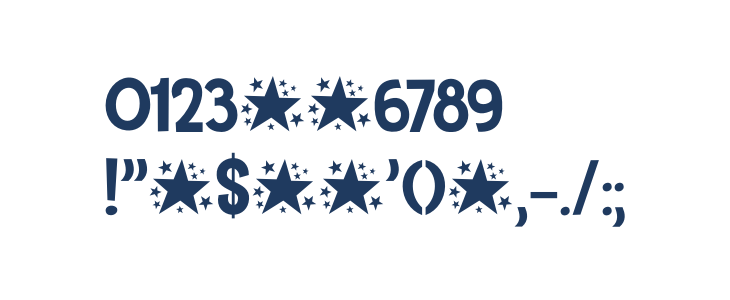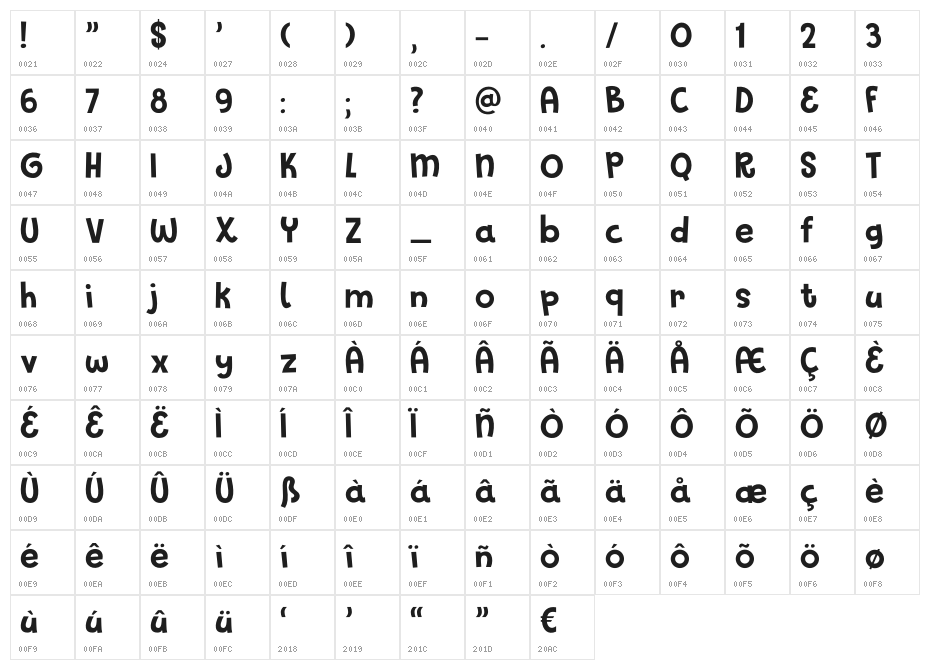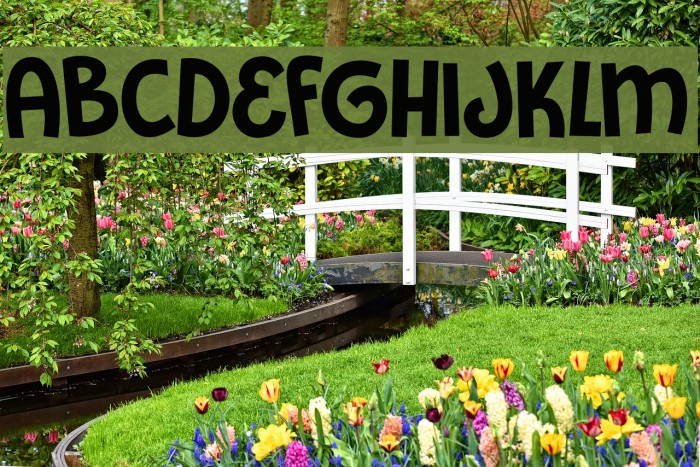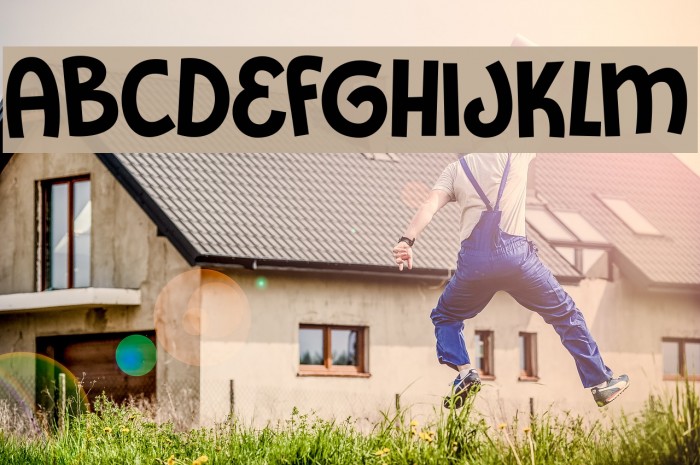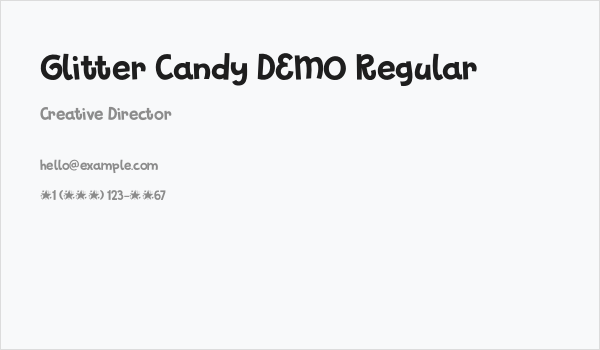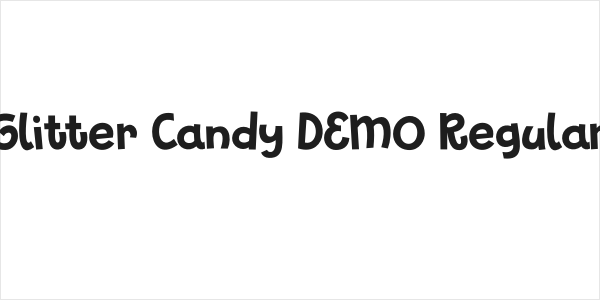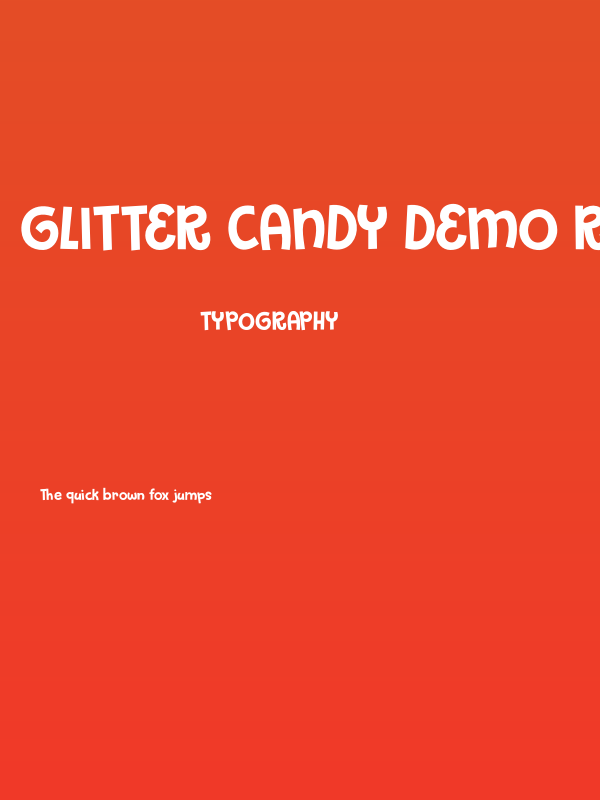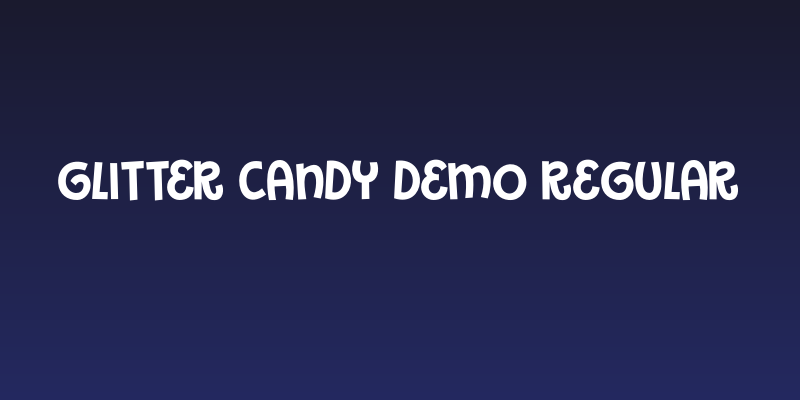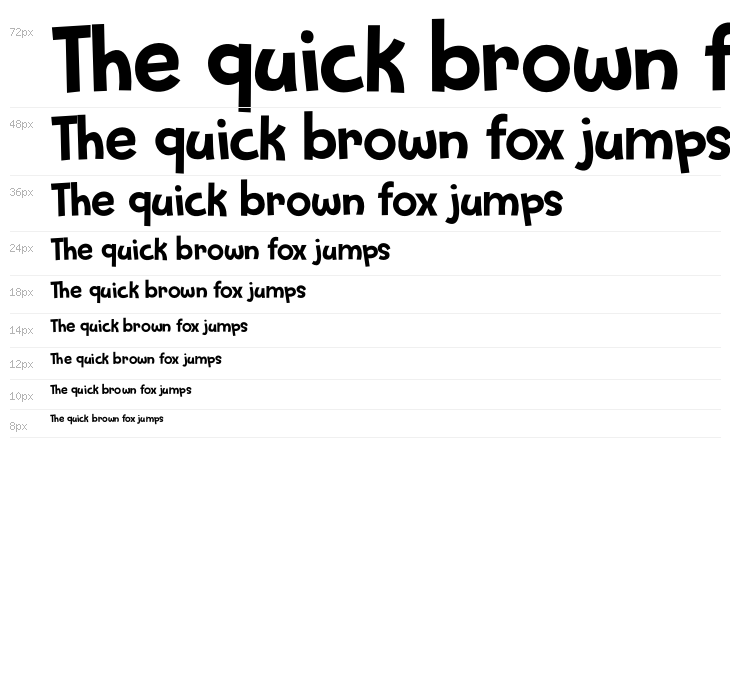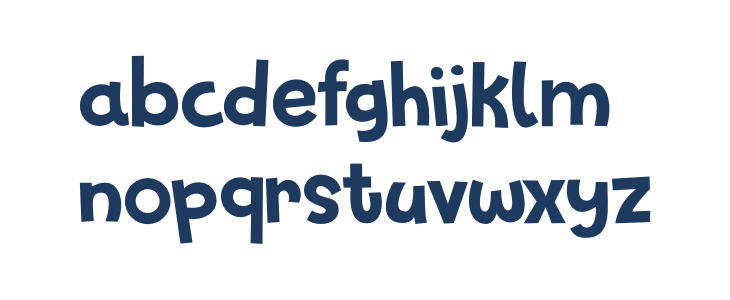
Glitter Candy DEMO Regular Font
Glitter Candy DEMO Regular Description
This playful and whimsical font features bold, rounded characters with a lively and energetic feel. The letters are slightly irregular, adding a sense of fun and spontaneity. The font includes decorative elements such as stars integrated into some of the characters, enhancing its playful nature. The numbers and special characters maintain the same lively style, making it suitable for creative and informal designs. Its bold appearance ensures readability while the unique character shapes add a distinctive touch.
| Proposed Projects | Ideal for children's books, party invitations, playful branding, and creative posters. |